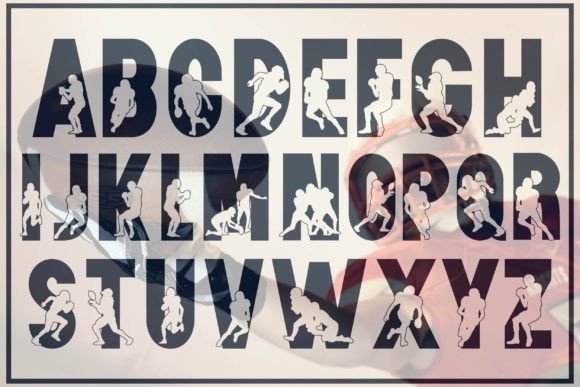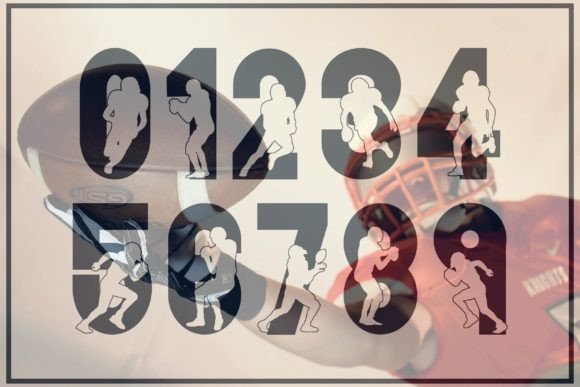
Introducing Football Font: The Ultimate Decorative Font for Sports-Inspired Designs
Are you a designer or crafter looking for a font that screams sports excitement and energy? Look no further than Football Font, a bold and authentic decorative font that’s perfect for adding a touch of athletic flair to your creative projects. In this article, we’ll dive into the world of Football Font, exploring its features, benefits, and uses, as well as provide tips and inspiration for incorporating it into your designs.
What is Football Font?
Football Font is a decorative font designed to capture the spirit of football and other sports. With its bold, chunky letters and authentic sports-inspired aesthetic, this font is sure to make your designs stand out from the crowd. Whether you’re creating a logo, poster, or social media graphic, Football Font is the perfect choice for adding a touch of excitement and energy to your work.
Key Features of Football Font
- Bold and Authentic Design: Football Font features bold, chunky letters with an authentic sports-inspired aesthetic.
- Easy to Read: Despite its bold design, Football Font is easy to read, even at smaller sizes.
- Versatile: Football Font is perfect for a wide range of design projects, from logos and posters to social media graphics and more.
- Customizable: With Football Font, you can customize your text to fit your brand’s style and aesthetic.
Benefits of Using Football Font
So why choose Football Font for your design projects? Here are just a few benefits of using this amazing font:
- Adds Energy and Excitement: Football Font is the perfect way to add a touch of sports excitement and energy to your designs.
- Creates a Bold Statement: With its bold, chunky letters, Football Font is sure to make a bold statement in any design.
- Perfect for Sports-Themed Designs: Whether you’re creating a logo for a sports team or designing a poster for a sports event, Football Font is the perfect choice.
- Easy to Pair with Other Fonts: Football Font pairs perfectly with a wide range of other fonts, making it easy to create a cohesive look.
Using Football Font in Your Designs
So how can you use Football Font in your designs? Here are a few ideas to get you started:
- Logos and Branding: Use Football Font to create a bold and memorable logo for your sports-themed brand.
- Posters and Flyers: Add a touch of sports excitement to your posters and flyers with Football Font.
- Social Media Graphics: Use Football Font to create eye-catching social media graphics that are sure to grab attention.
- Team Jerseys and Apparel: Design custom team jerseys and apparel with Football Font for a bold and authentic look.
Tips for Getting the Most Out of Football Font
Here are a few tips for getting the most out of Football Font:
- Experiment with Different Colors: Try pairing Football Font with different colors to create a unique and eye-catching look.
- Play with Font Sizes: Experiment with different font sizes to create visual interest and hierarchy in your designs.
- Combine with Other Fonts: Try pairing Football Font with other fonts to create a cohesive and visually appealing look.
Football Font is a bold and authentic decorative font that’s perfect for adding a touch of sports excitement and energy to your design projects. With its bold, chunky letters and authentic sports-inspired aesthetic, this font is sure to make your designs stand out from the crowd. Whether you’re a designer or crafter, Football Font is a must-have font for any sports-themed project. So why wait? Download Football Font today and start creating amazing designs that are sure to score big!